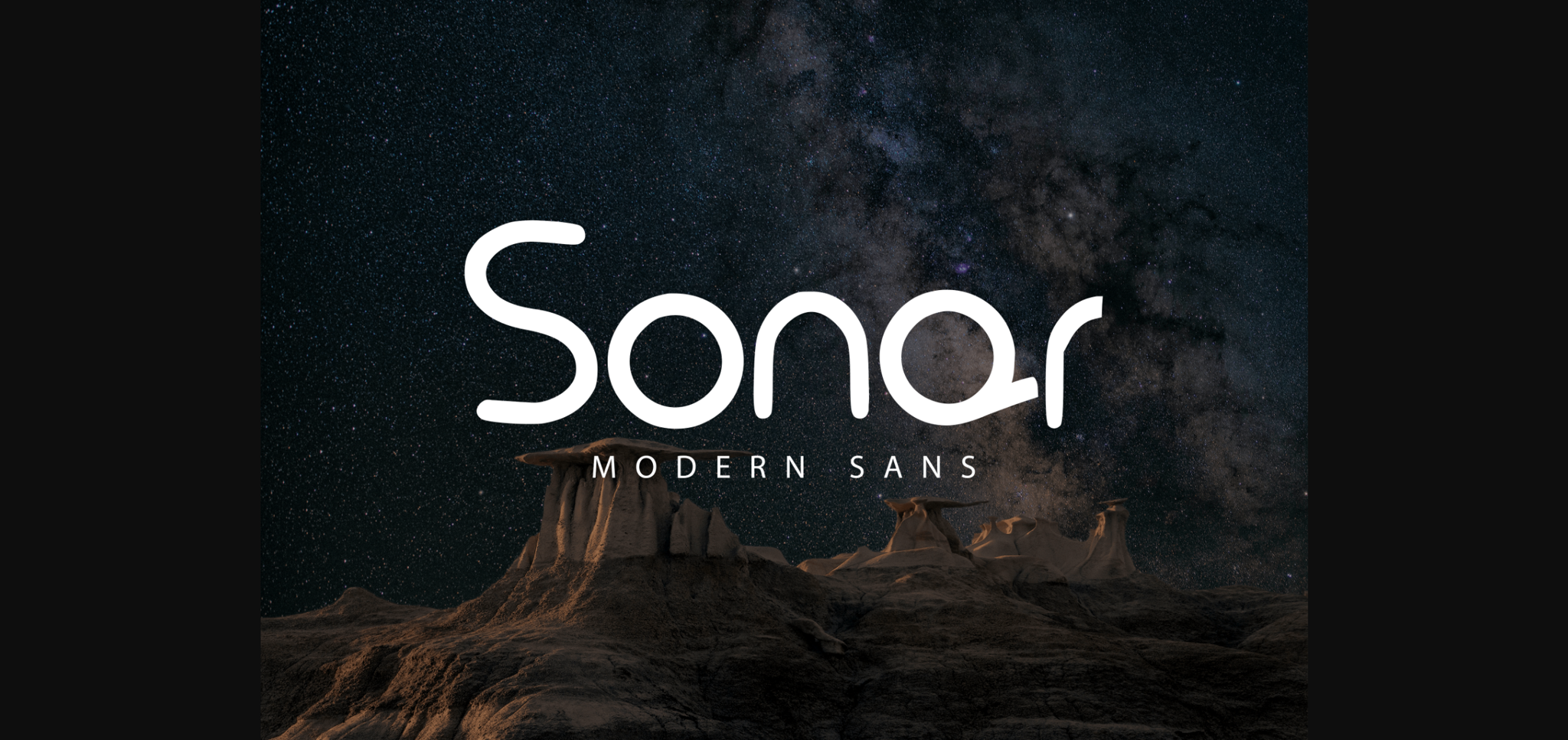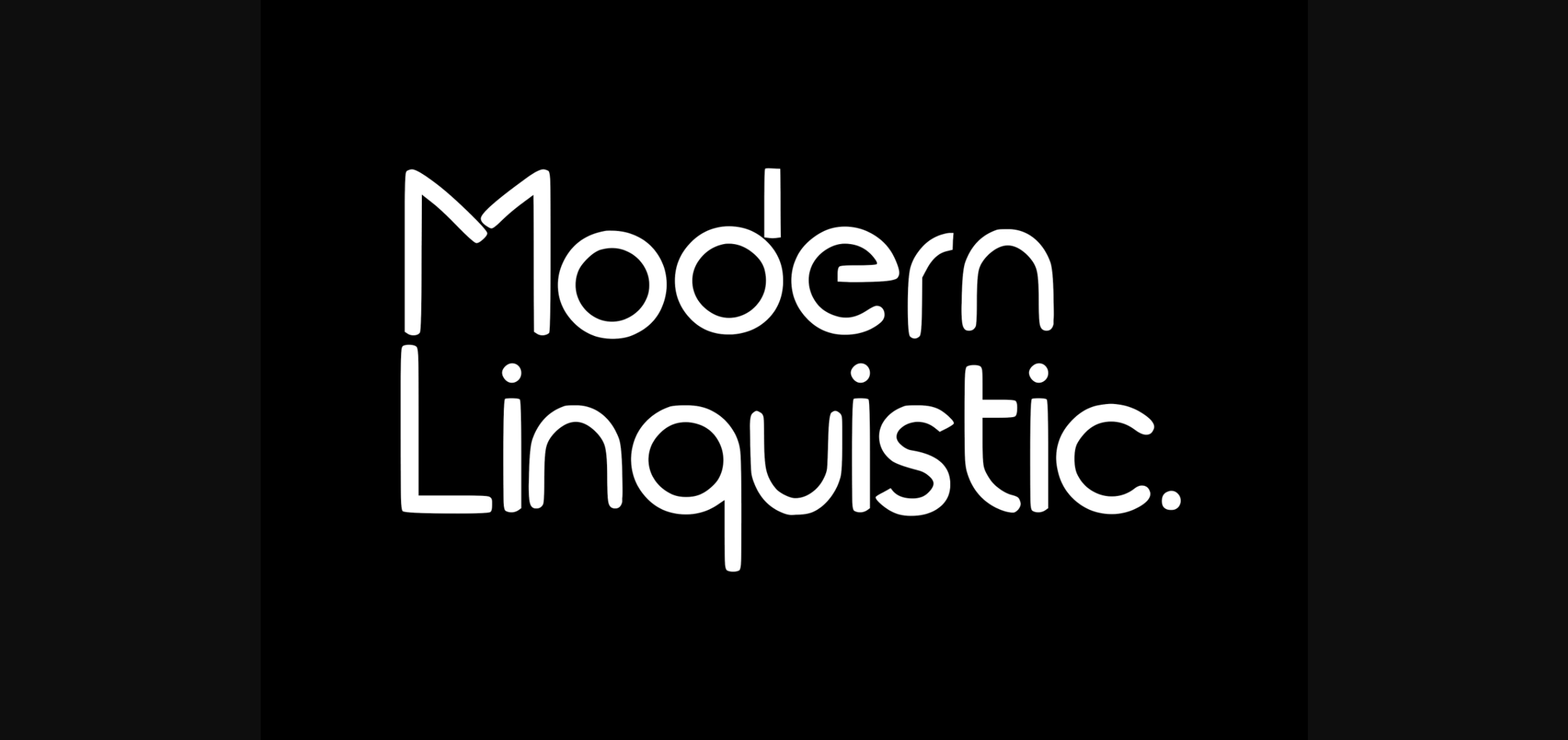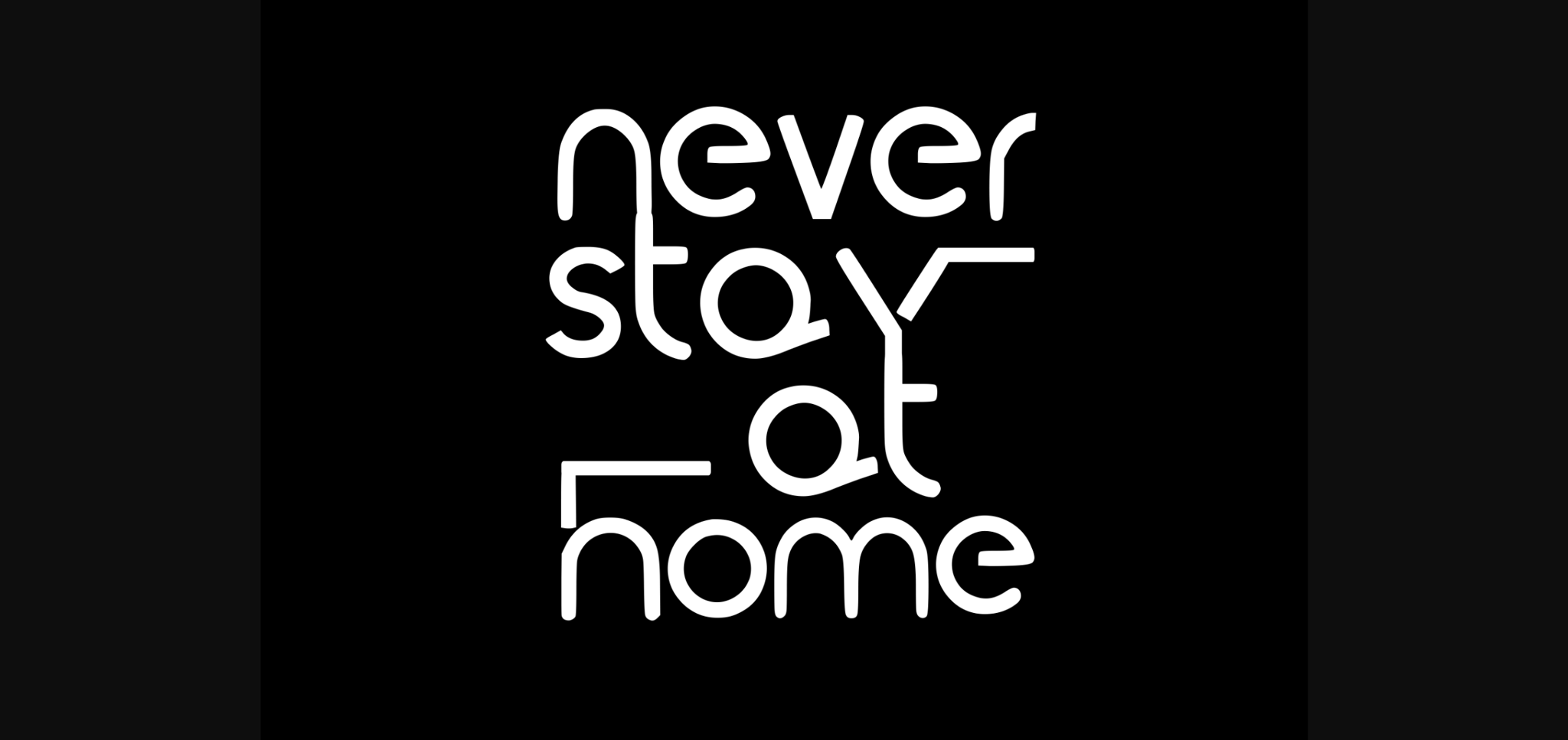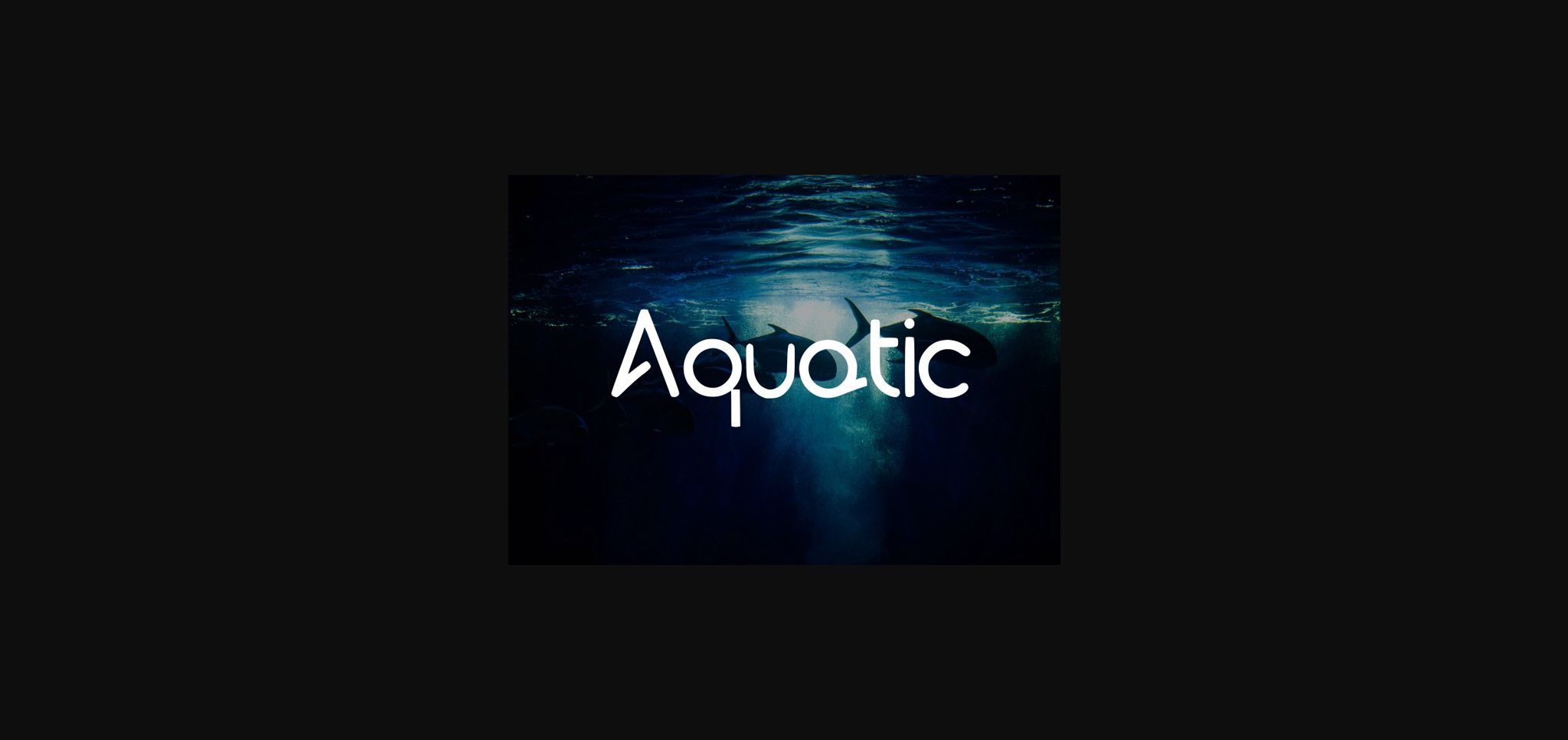
Sonar Font
About Sonar Font
Sonar is simple and casual sans serif font. It looks beautiful on a variety of designs requiring a personalized style, such as wedding invitations, thank you cards, greeting cards, logos, and so on.